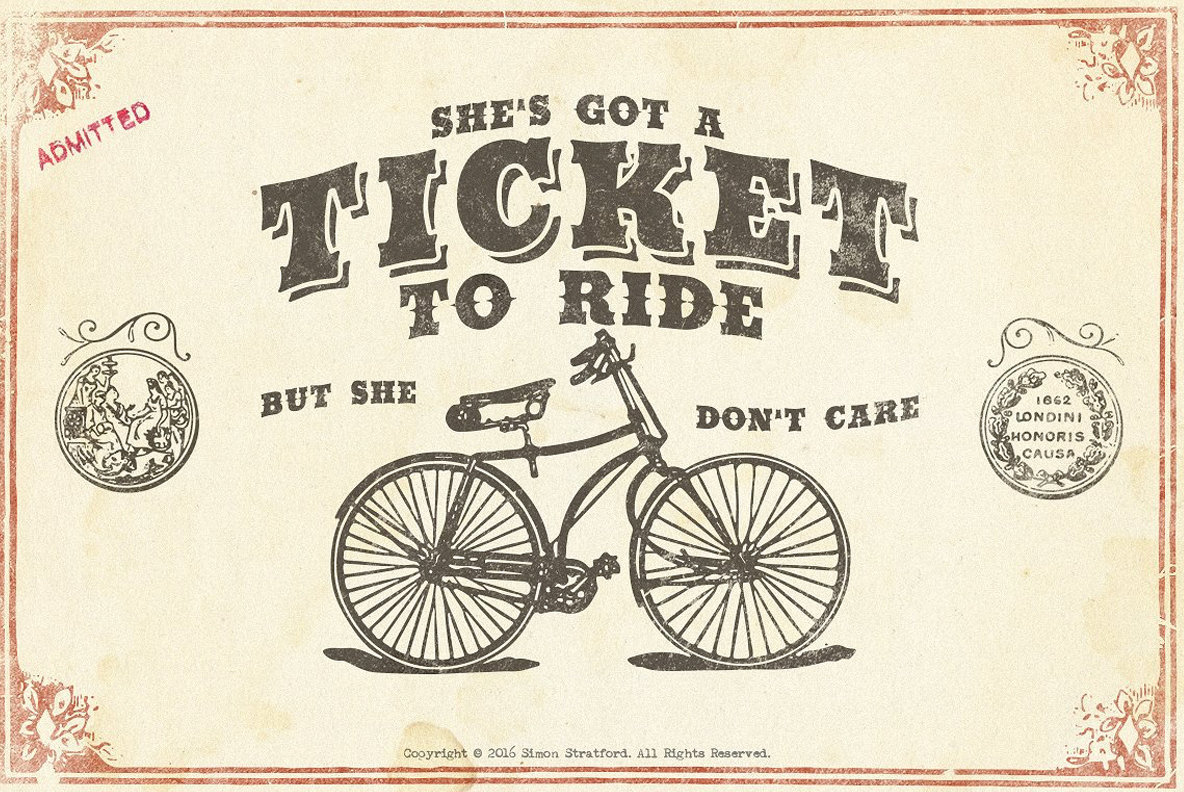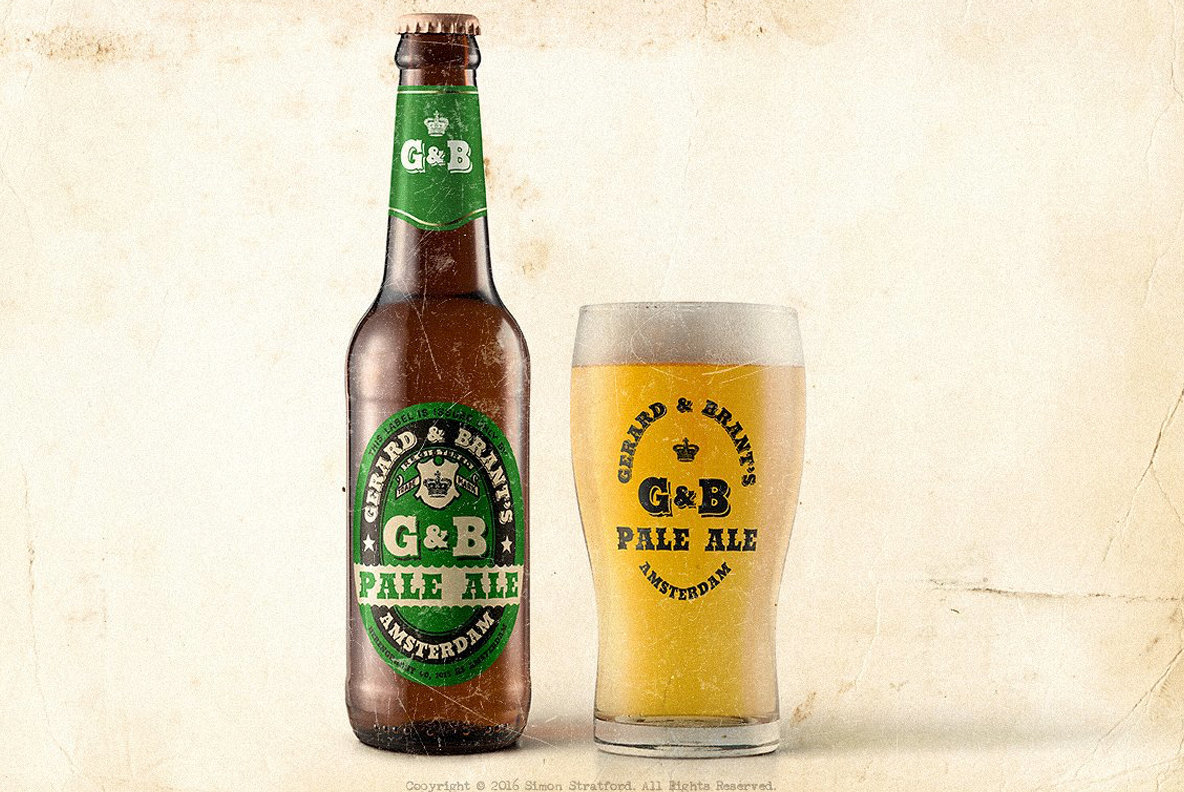
Lawless Font
Inspired by the early American wood type of the 1800's. Lawless font is bold and brash and is the ideal typeface to get that vintage wild west look and feel.
Lawless comes in 4 different styles Regular, Grunge, Spur and Shadow. Easily mix and match them to get the look you're after.
The font includes
Upper and lowercase characters
Numbers and punctuation
Symbols
Support for Eastern, Central and Western European countries
4 Different styles
If this font was a celebrity it would be more Clint Eastwood than Eminem.